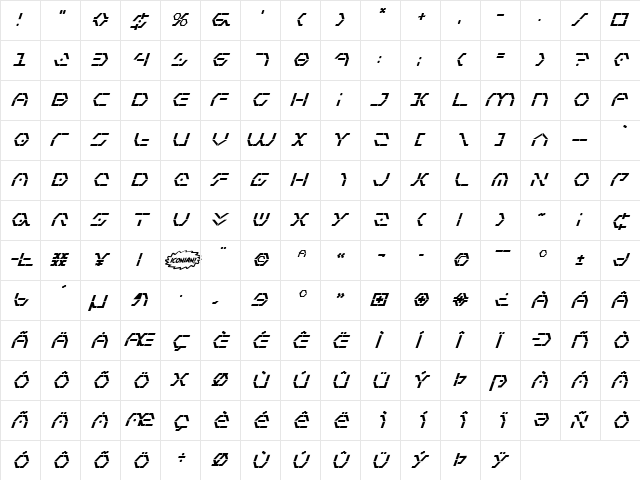
Zeta Sentry Bold Italic Font Preview
Design Context for Zeta Sentry Bold Italic Typeface
Zeta Sentry Bold Italic takes a measured approach to typography — its balanced proportions and neutral character make it a reliable workhorse for both digital and print work. Its italic angle brings a sense of urgency and motion to the letterforms. Its bold stroke weight gives it real presence on the page.
Pro Tip: Use Zeta Sentry Bold Italic for emphasis, pull quotes, and subheadings where its slanted energy can add rhythm to the layout.